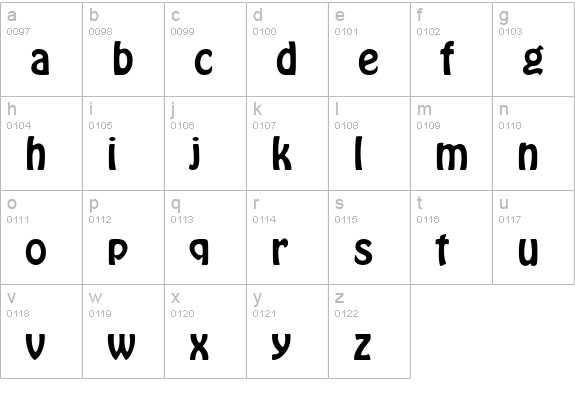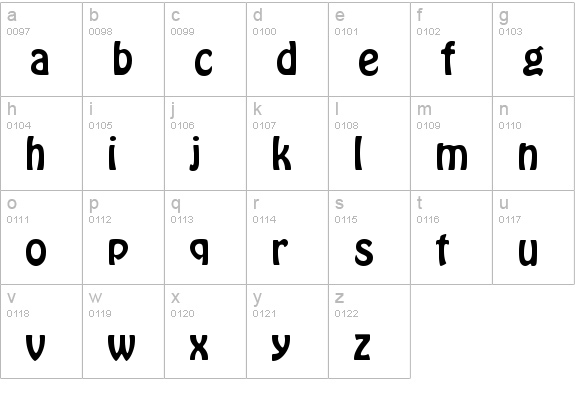
Hobo font is a unique and distinctive typeface that exudes a sense of individuality and character. Its quirky and playful design makes it perfect for adding a touch of whimsy to any project. The rounded edges and irregular shapes give Hobo font a hand-drawn quality that sets it apart from more traditional fonts. What's even better is that Hobo font is completely free to download at FontsMarket.com. This means you can easily access this charming typeface and use it in your designs without any cost. Whether you're creating posters, invitations, or branding materials, Hobo font is sure to bring a fun and creative element to your work. Embrace the free-spirited nature of Hobo font and let your imagination run wild with this delightful typeface.